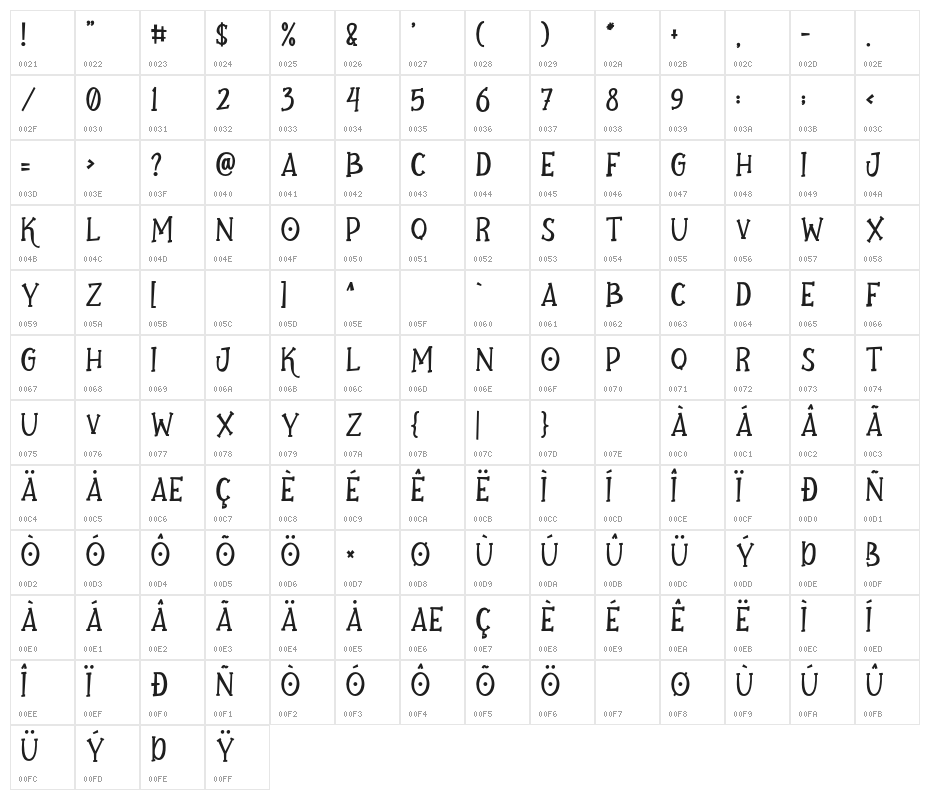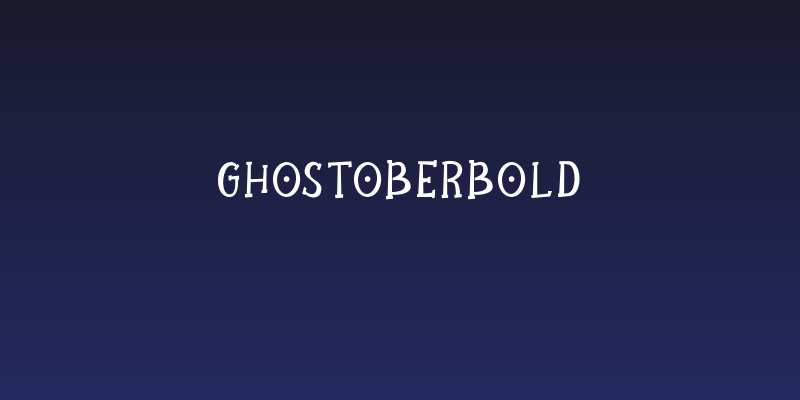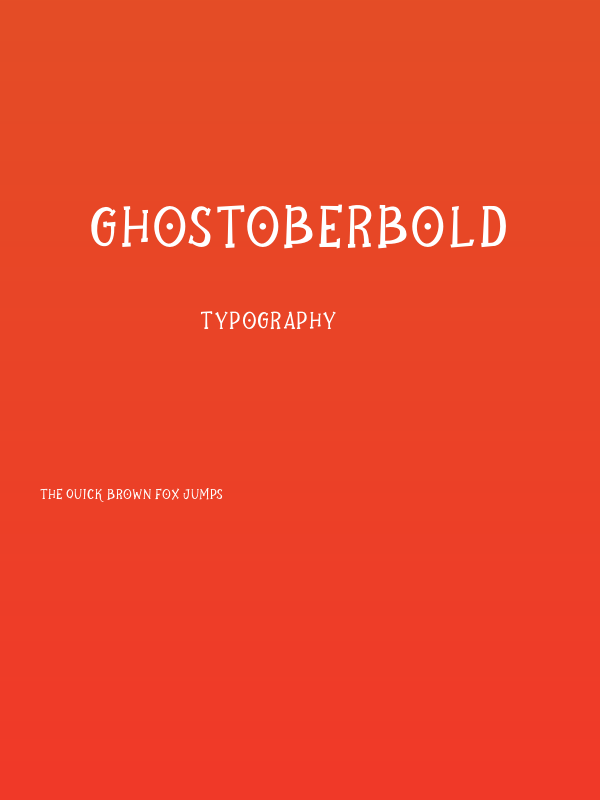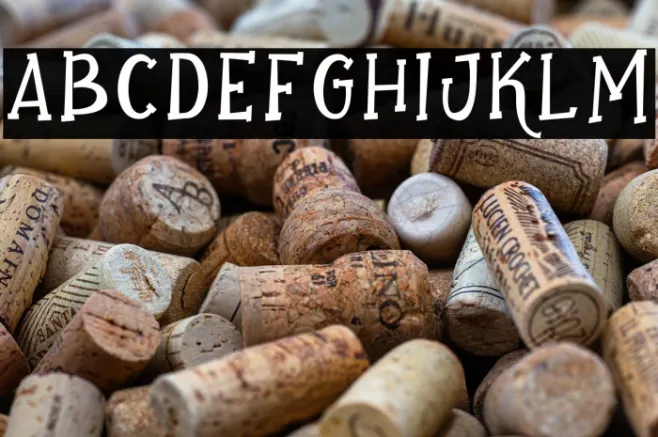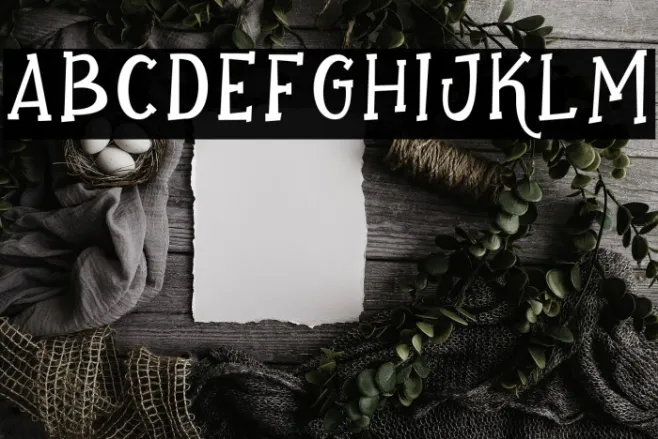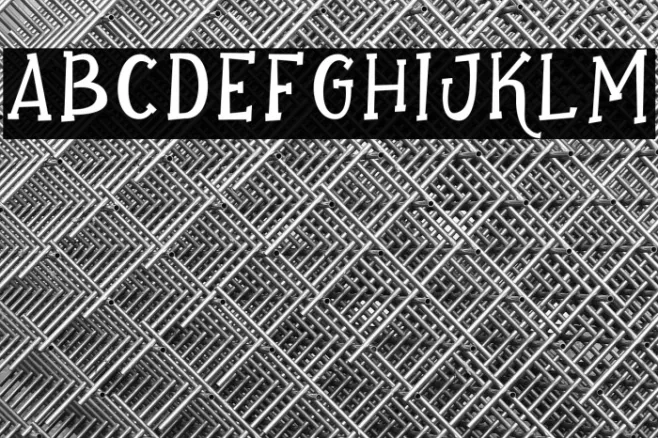
GhostoberBold Font
GhostoberBold Description
This font features a playful and slightly spooky aesthetic, characterized by its uneven, hand-drawn appearance. The letters have a whimsical, slightly irregular form, with varying stroke thickness that adds to its quirky charm. The uppercase and lowercase letters maintain a consistent style, with some characters exhibiting unique flourishes, such as the curved tails on the 'R' and 'Q'. The numerals and special characters follow the same playful style, making the font suitable for creative and themed projects. Its boldness and distinctive style make it stand out, perfect for capturing attention.
| Proposed Projects | Ideal for Halloween-themed designs, children's book covers, playful posters, and creative branding. |